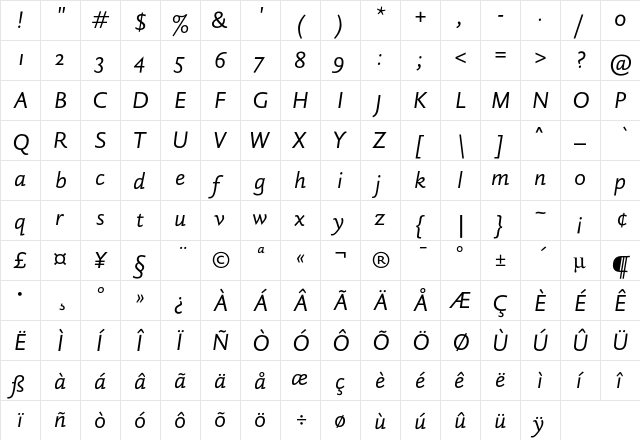
DTLHaarlemmerSansSD Italic
Design Context for DTLHaarlemmerSansSD Typeface
DTLHaarlemmerSansSD takes a measured approach to typography — its balanced proportions and neutral character make it a reliable workhorse for both digital and print work. The slanted form adds forward momentum and visual energy.
Pro Tip: Try DTLHaarlemmerSansSD for annotation and caption copy alongside an upright companion — the contrast in angle creates a dynamic but ordered typographic system.